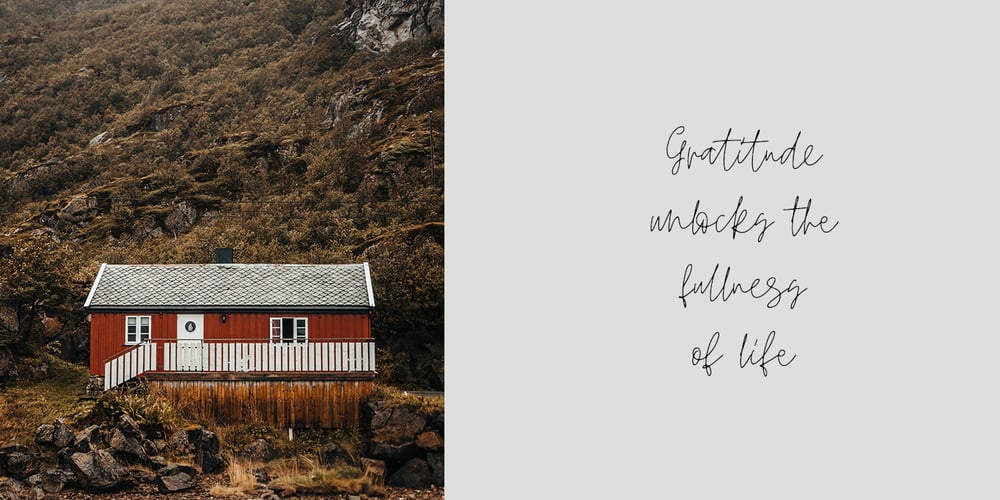
Ludwig Font Family was designed by Dmitrii Chirkov and published by Supfonts. Ludwig contains 1 styles and family package options. Meet my new signature script Ludwig! Ludwig includes 158 ligatures, full set of uppercase and lowercase letters, multilingual symbols, numerals and punctuation. This is so perfect for invitations, monograms etc. It includes Multilingual support and 158 Ligatures.